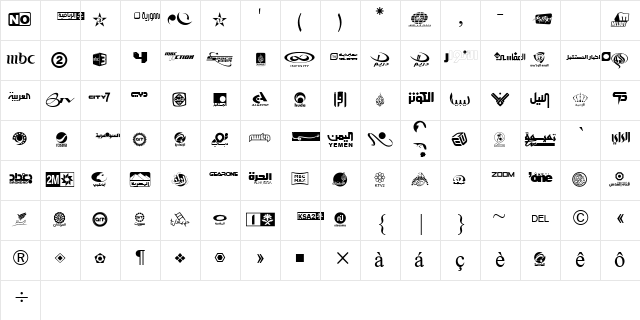
Arab TV logos Regular
| Foundry | Mustapha ASBBAR |
| Designer | Mustapha Asbbar |
Design Context for Arab TV logos Typeface
Arab TV logos is a composed and adaptable typeface that performs quietly and consistently across a wide range of design contexts.